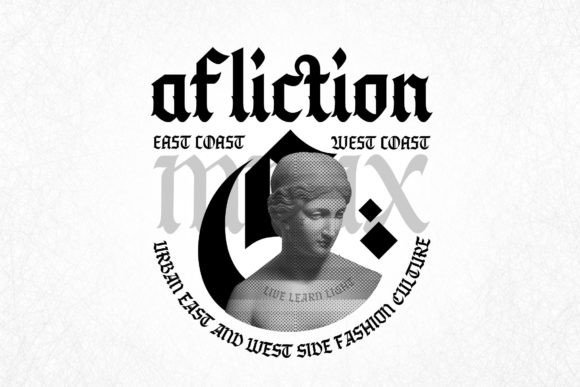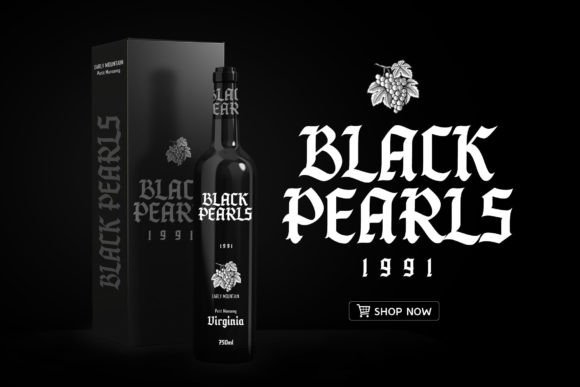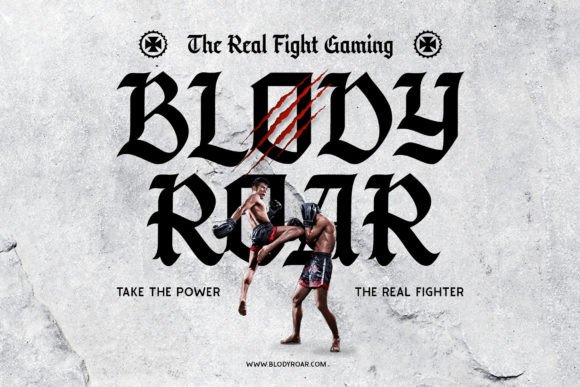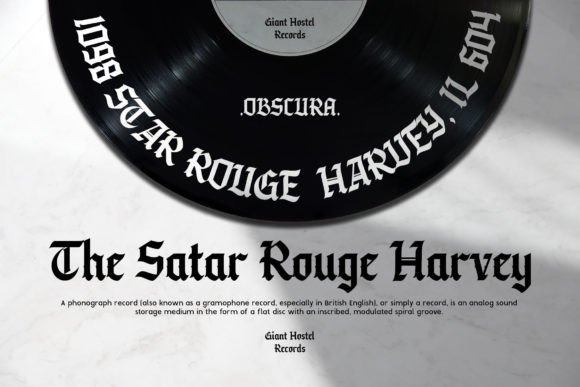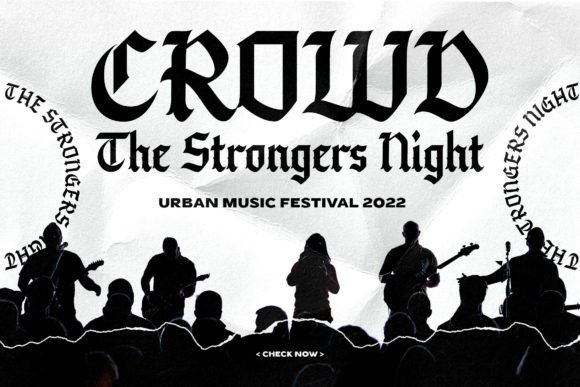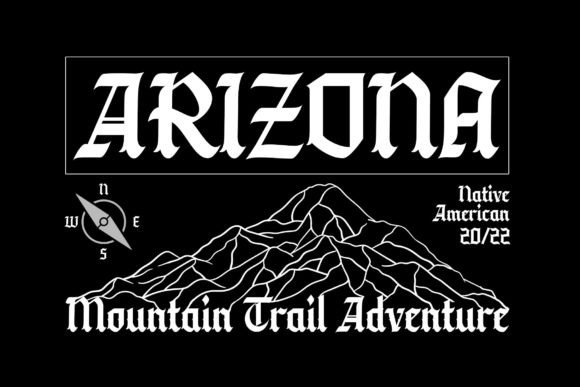
The Ultimate Design Companion: Unleashing the Power of Giant Hostel Font
Have you ever been in the middle of a design project, and suddenly, you just can’t seem to find the right font? I recall a particularly frustrating experience while working on a Halloween-themed branding project for a local event. My client wanted a bold, gothic-inspired font that would scream “spooky fun,” but everything I tried seemed to fall flat. That’s when I stumbled upon the Giant Hostel font – a game-changing, SubUrban Blackletter font that instantly elevated my design.
- ✨ Versatility: Giant Hostel is incredibly versatile, making it suitable for a wide range of design needs, from logos and branding to Halloween-themed designs, hardcore music visuals, and even editorial design.
- ✅ Unique Character: This font has a distinct, bold personality that adds an edgy touch to any design.
- 🔥 High-Impact: The font’s dramatic style is perfect for making a statement, whether you’re designing a poster, a book cover, or a website header.
While Giant Hostel is an amazing font, there are a few things to keep in mind:
- ⚠️ Legibility at Small Sizes: Due to its intricate design, the font may not be the best choice for body text or small sizes, where readability is crucial.
- 🤔 Limited Use in Formal Designs: The font’s bold, gothic style might not be suitable for more formal or traditional designs, such as corporate branding or official documents.
Giant Hostel was inspired by the raw energy of urban landscapes and the rebellious spirit of hardcore music. The font’s designer aimed to create a bold, eye-catching typeface that would reflect the edginess and intensity of city life. The result is a font that’s both striking and versatile, perfect for designers looking to add a touch of drama to their work.
Q: What type of designs is Giant Hostel best suited for?
A: Giant Hostel is perfect for bold, eye-catching designs like logos, branding, Halloween-themed visuals, hardcore music artwork, and gothic-inspired designs.
Q: Is Giant Hostel difficult to read at small sizes?
A: Due to its intricate design, Giant Hostel may not be the best choice for body text or small sizes. It’s best used for headlines, titles, or large-format designs.